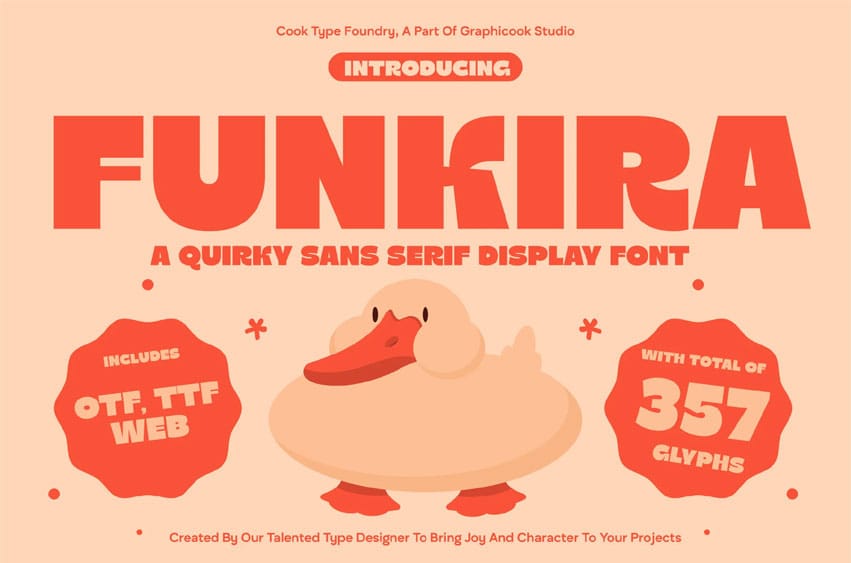
Funkira Font is a sans-serif font with unconventional, quirky letterforms that create a unique and playful impression. It’s perfect for designs that aim to be bold, expressive, and full of character.
Funkira is perfect for headlines, logotypes, magazines, packaging, quotes, movies, games, cover albums, book covers, and flyers, it’s a perfect solution for creating eye-catching designs that stand out in any context.